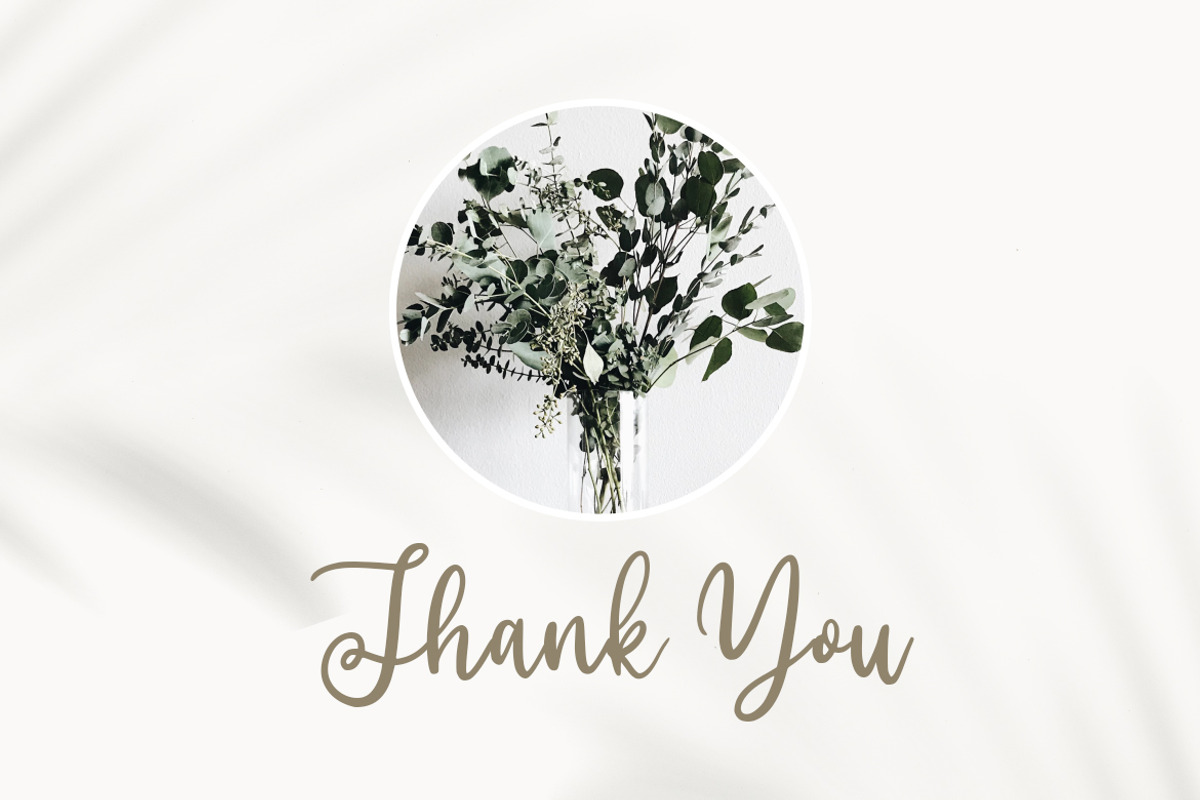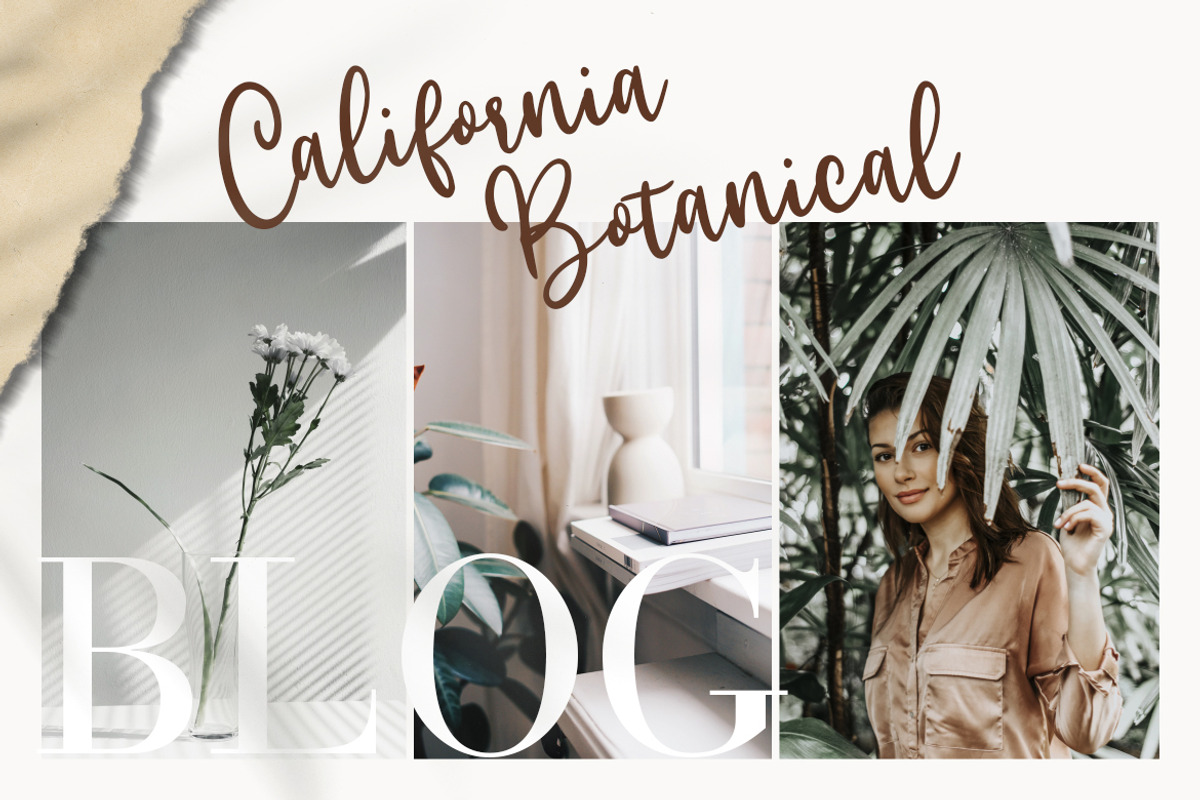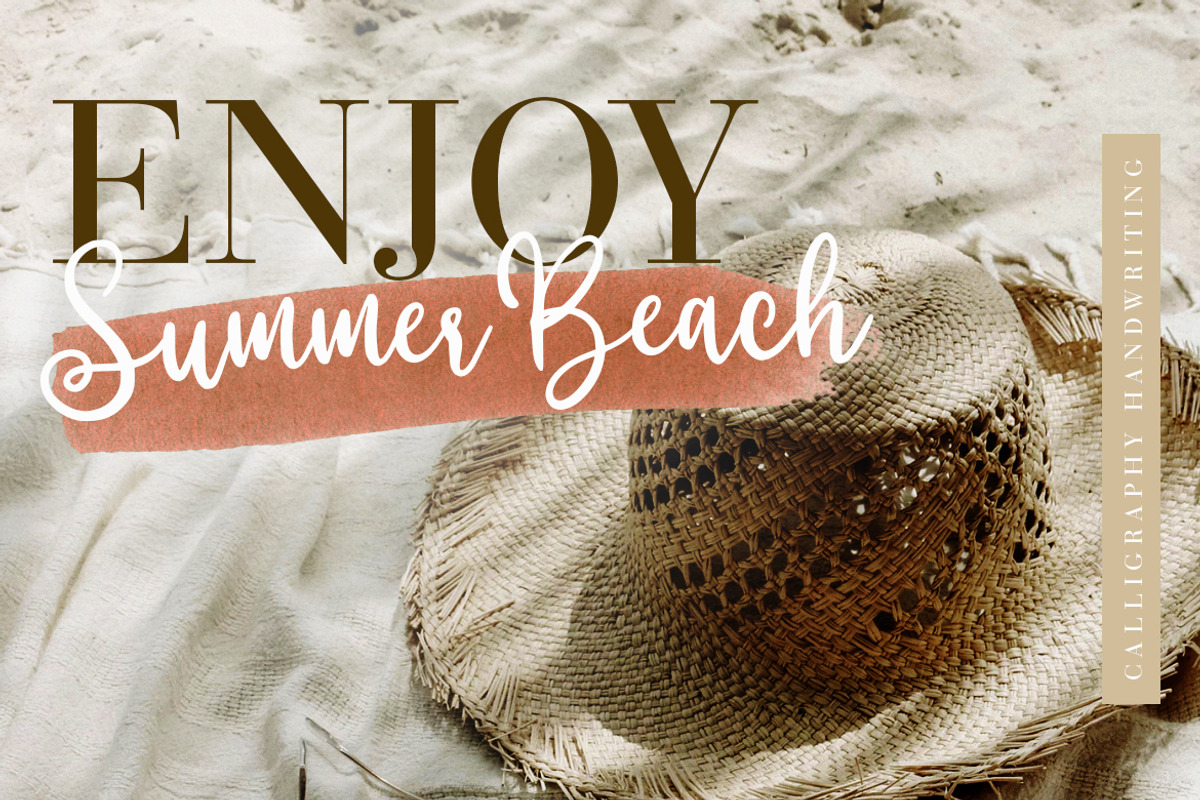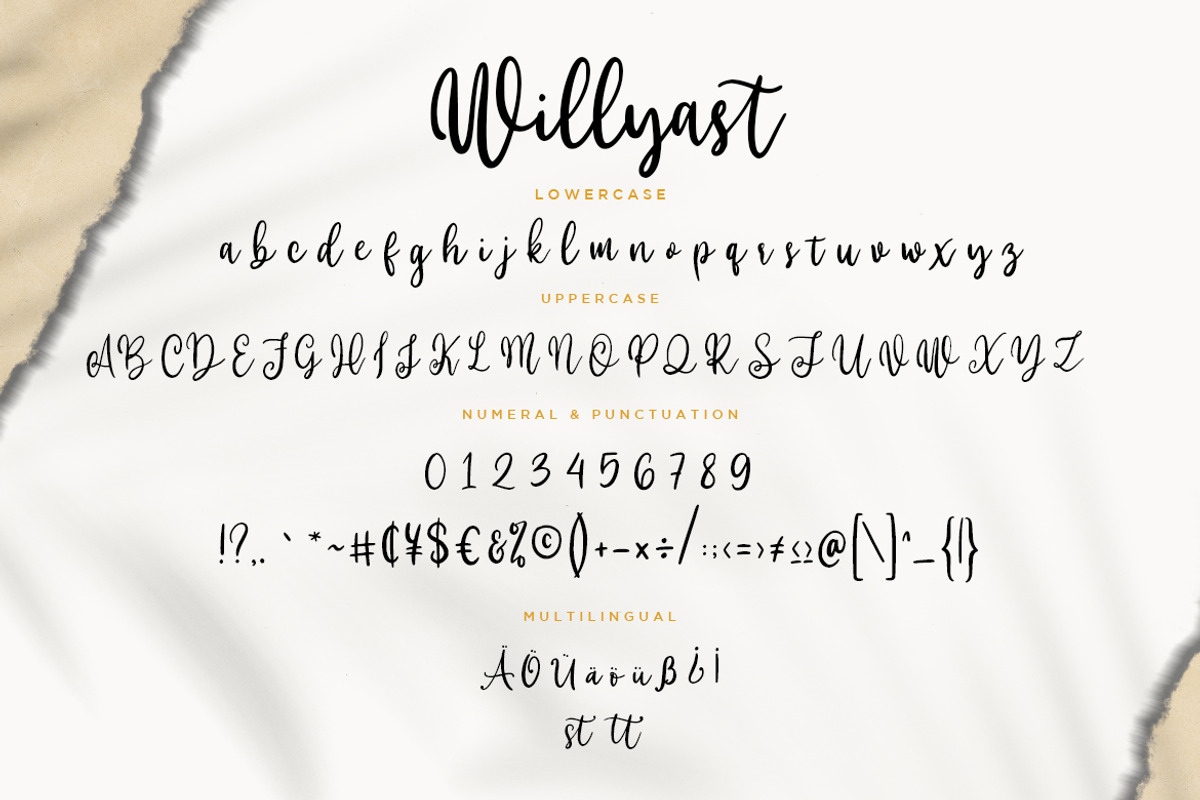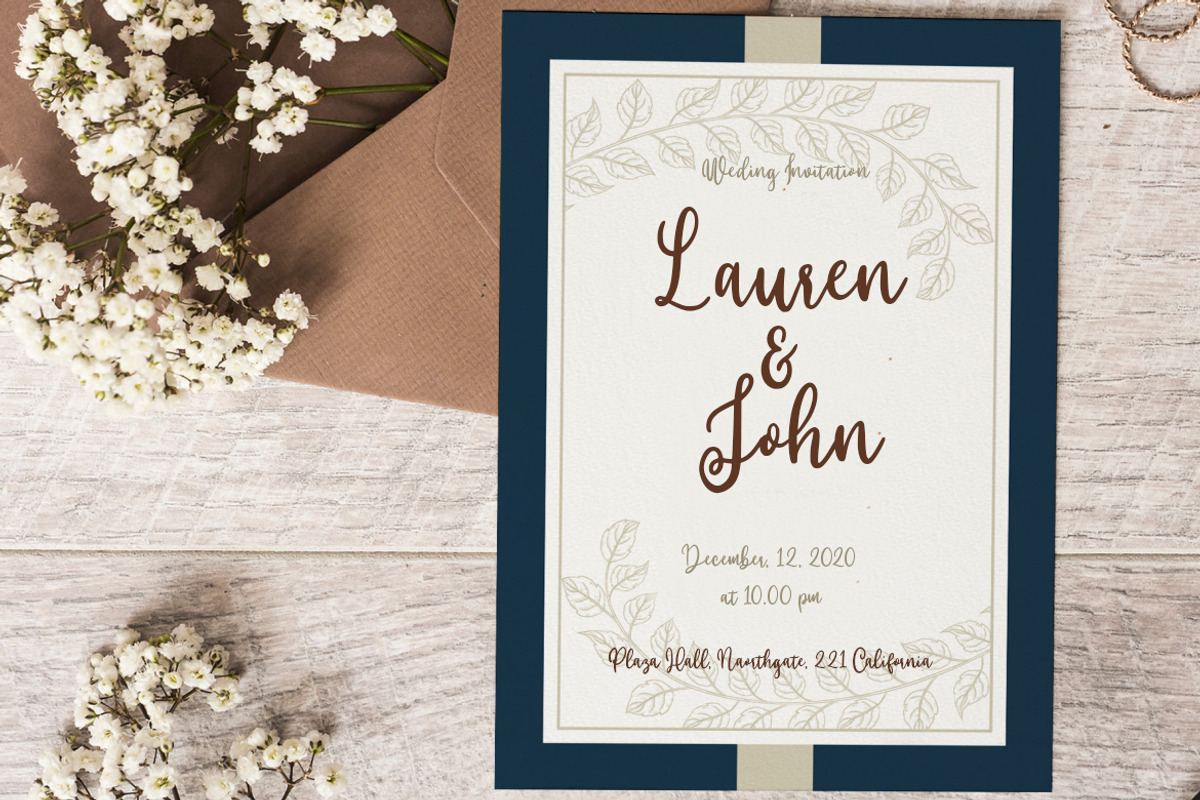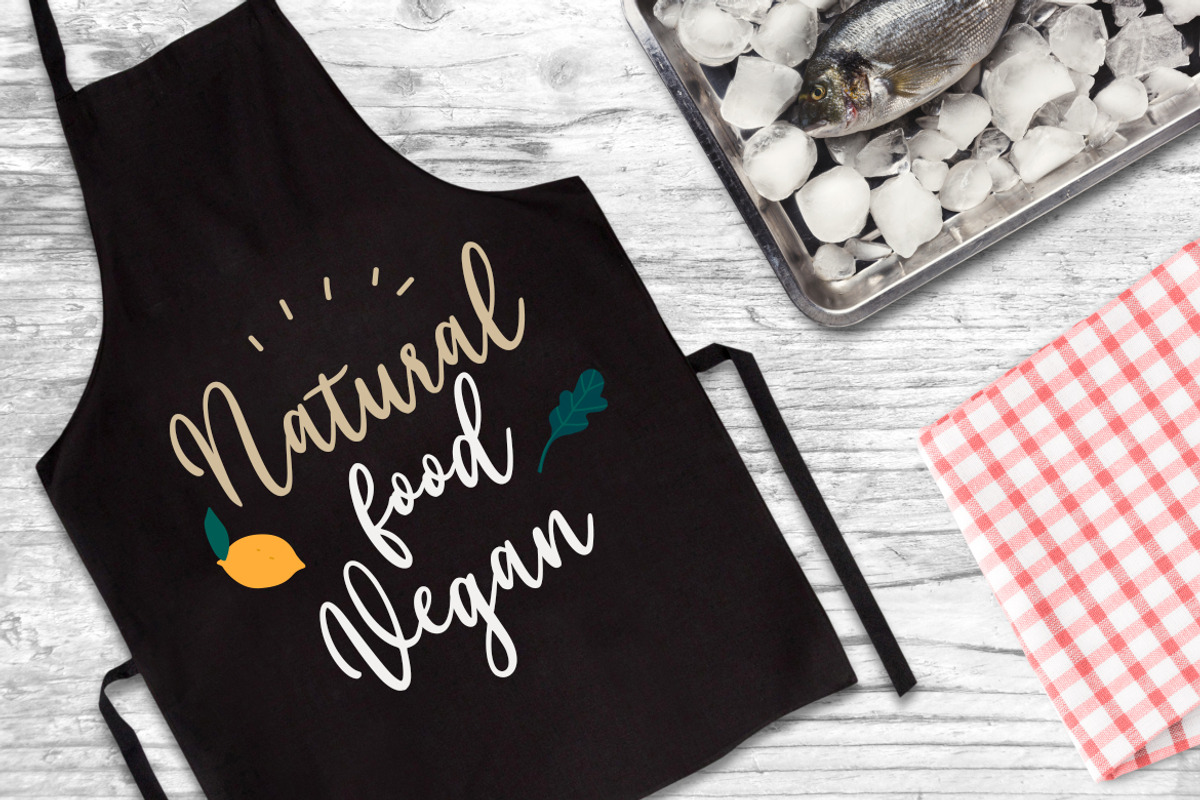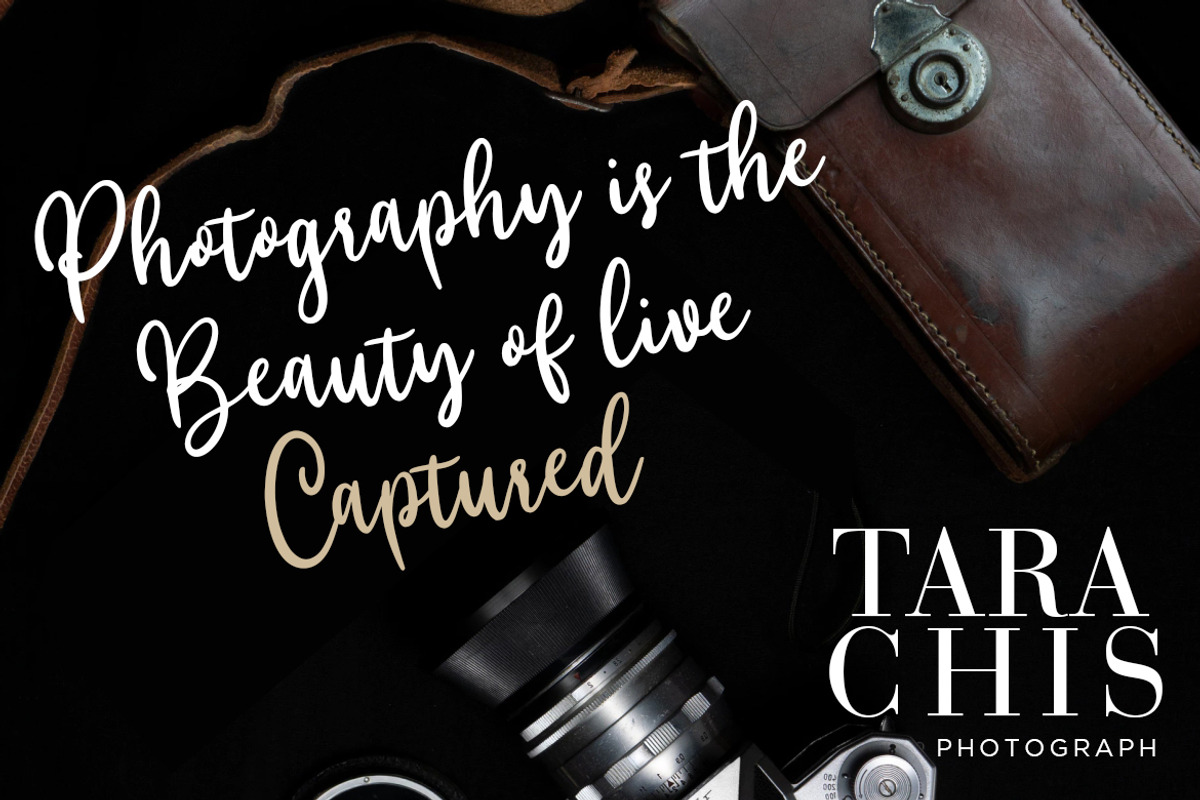
Willyast Calligraphy Business Font
Willyast is modern calligraphy font with smooth movement and elegant style.
Willyast is perfect for branding projects, logo, wedding designs, social media posts, advertisements, product packaging, product designs, label, photography, watermark, invitation, stationery and any projects that need handwriting taste.
- Fonts include multilingual support for; ä ö ü Ä Ö Ü ß ¿ ¡
Why Willyast Calligraphy Business Font is worth a look
Willyast Calligraphy Business Font by Creatype Studio fits naturally into Branding, posters, packaging, typography.